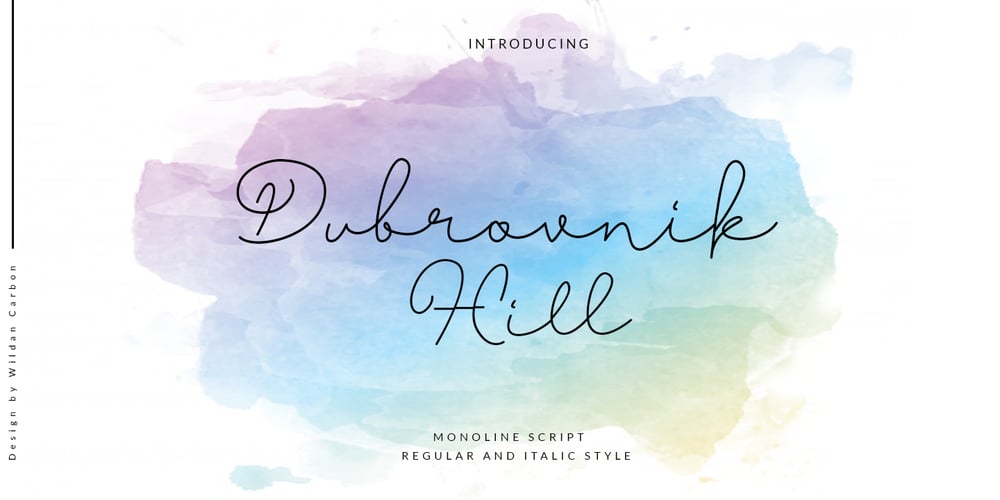
Dubrovnik Hill
Dubrovnik Hill font
Dubrovnik Hill Font Family was designed by Wildan Carbon and published by Wildan Type. Dubrovnik Hill contains 2 styles and family package options. “Dubrovnik Hill” is a handwritten calligraphy font with a subtle, cute, minimalist and modern touch. It’s perfect for branding, event invitations, beautiful Instagram posts. You will love them! :)”Dubrovnik Hill” includes a full set of charming international uppercase and lowercase letters, numbers, multiple punctuation marks and ligatures. all of which provide a realistic handwritten style.